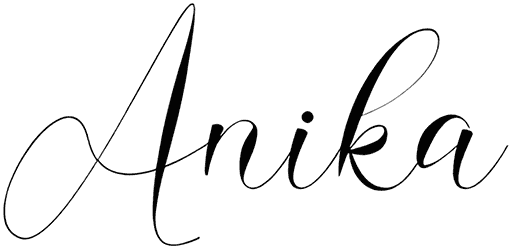
Anika Font
Decorating your creative projects with this script font can add an artistic spirit to your posters, greeting cards, banners, and cosmetic packaging that you need to attract the attention of customers.
By adding this sexy font to your plans, you can spice them up with playful joy to win the audience’s trust more quickly. The sophistication of the outward may have made this font illegible, try Anika, and be sure you won’t lament.